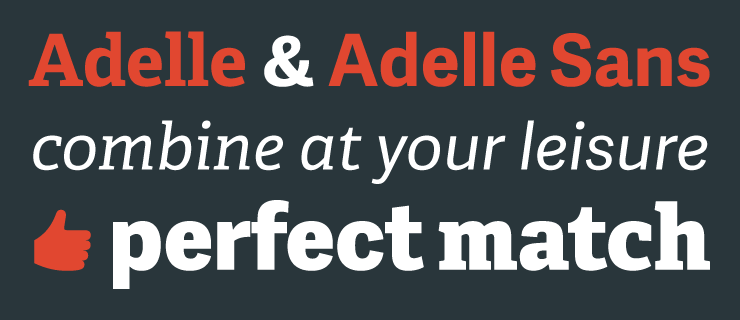
AbrilA contemporary interpretation of a classic newsface.Read moreStandard LigaturesStylistic AlternatesDiscretionary LigaturesLining FiguresOld Style FiguresLining Tabular FiguresFractionsSuperiors (Superscript)Inferiors (Subscript)DenominatorsNumeratorsOrnamentsOpen Type FormatTabular Old Style Figures
AdelleA versatile and elegant multi-purpose Slab Serif with personality.Read moreTabular Old Style FiguresSuperiors (Superscript)Standard LigaturesSmall CapsSlashed ZeroOrnamentsOrdinalsOpen Type FormatOld Style FiguresNumeratorsLining Tabular FiguresLining FiguresInferiors (Subscript)FractionsExtended LatinDiscretionary LigaturesDenominators
Adelle SansA versatile multi-purpose sans serif companion to Adelle Slab.Read moreStandard LigaturesDiscretionary LigaturesSmall CapsLining FiguresOld Style FiguresLining Tabular FiguresFractionsSlashed ZeroOrdinalsSuperiors (Superscript)Inferiors (Subscript)DenominatorsNumeratorsOrnamentsOpenType PROOpen Type FormatTabular Old Style Figures
AlizéA three-weight typeface inspired by the chancery italic of the 16th century.Read moreStandard LigaturesStylistic AlternatesSmall CapsLining FiguresOld Style FiguresLining Tabular FiguresFractionsOrdinalsSuperiors (Superscript)Inferiors (Subscript)DenominatorsNumeratorsOrnamentsExtended LatinOpen Type FormatTabular Old Style Figures
AthelasAn expressive and elegant typeface modeled on its classic ancestors.Read moreStandard LigaturesStylistic AlternatesDiscretionary LigaturesSmall CapsLining FiguresOld Style FiguresLining Tabular FiguresFractionsSlashed ZeroOrdinalsSuperiors (Superscript)Inferiors (Subscript)DenominatorsNumeratorsOrnamentsExtended LatinOpen Type FormatTabular Old Style Figures
BreeA spirited and rhythmic upright italic, ideal for display use.Read moreStandard LigaturesDiscretionary LigaturesLining FiguresOld Style FiguresLining Tabular FiguresFractionsSuperiors (Superscript)Inferiors (Subscript)DenominatorsNumeratorsExtended LatinOpen Type FormatTabular Old Style Figures
Bree SerifAn energetic yet charming upright italic and the perfect companion for Bree.Read moreStandard LigaturesDiscretionary LigaturesLining FiguresOld Style FiguresLining Tabular FiguresFractionsSuperiors (Superscript)Inferiors (Subscript)DenominatorsNumeratorsExtended LatinOpen Type FormatTabular Old Style Figures
Capitolium 2A modern typeface not only for newsprint with strong links to tradition.Read moreStandard LigaturesSmall CapsLining FiguresOld Style FiguresLining Tabular FiguresFractionsOrdinalsSuperiors (Superscript)Inferiors (Subscript)DenominatorsNumeratorsOpenType PROOpen Type FormatTabular Old Style Figures
CoraA versatile and highly legible Sans with some contrast.Read moreStandard LigaturesSmall CapsLining FiguresOld Style FiguresLining Tabular FiguresFractionsSuperiors (Superscript)Inferiors (Subscript)DenominatorsNumeratorsExtended LatinOpen Type FormatTabular Old Style Figures
Coranto 2A refined newsface with distinctive character and clarity. Read moreStandard LigaturesDiscretionary LigaturesLining FiguresOld Style FiguresLining Tabular FiguresFractionsSuperiors (Superscript)Inferiors (Subscript)DenominatorsNumeratorsExtended LatinOpen Type FormatTabular Old Style Figures
CreteAn unusual Slab Serif, great for headlines or short texts.Read moreStandard LigaturesDiscretionary LigaturesLining FiguresOld Style FiguresLining Tabular FiguresFractionsSuperiors (Superscript)Inferiors (Subscript)DenominatorsNumeratorsExtended LatinOpen Type FormatTabular Old Style Figures
EditaA contemporary book typeface with a soft and warm touch.Read moreStandard LigaturesStylistic AlternatesDiscretionary LigaturesSmall CapsLining FiguresOld Style FiguresLining Tabular FiguresFractionsSlashed ZeroOrdinalsSuperiors (Superscript)Inferiors (Subscript)DenominatorsNumeratorsOrnamentsExtended LatinOpen Type FormatTabular Old Style Figures
EskapadeAn experimental interpretation of Fraktur mixed with old-style.Read moreStandard LigaturesDiscretionary LigaturesLining FiguresOld Style FiguresLining Tabular FiguresFractionsSuperiors (Superscript)Inferiors (Subscript)DenominatorsNumeratorsExtended LatinOpen Type FormatTabular Old Style Figures
GivryA lively and delicate blackletter, modeled on a bâtarde flamande.Read moreStandard LigaturesStylistic AlternatesDiscretionary LigaturesLining FiguresOld Style FiguresFractionsOrdinalsSuperiors (Superscript)Inferiors (Subscript)DenominatorsNumeratorsOrnamentsSwash AlternatesExtended LatinOpen Type FormatTabular Old Style Figures
IskraA sans serif challenging the limits between utilitarian and decorative.Read moreStandard LigaturesLining FiguresLining Tabular FiguresFractionsOrdinalsSuperiors (Superscript)Inferiors (Subscript)DenominatorsNumeratorsOpen Type Format
KarminaA highly legible and economic typeface, perfect for newspapers.Read moreStandard LigaturesStylistic AlternatesDiscretionary LigaturesSmall CapsLining FiguresOld Style FiguresLining Tabular FiguresFractionsSlashed ZeroOrdinalsSuperiors (Superscript)Inferiors (Subscript)DenominatorsNumeratorsOrnamentsExtended LatinOpen Type FormatTabular Old Style Figures
Karmina SansA versatile and vivid companion Sans to Karmina Serif.Read moreStandard LigaturesStylistic AlternatesDiscretionary LigaturesSmall CapsLining FiguresOld Style FiguresLining Tabular FiguresFractionsSlashed ZeroOrdinalsSuperiors (Superscript)Inferiors (Subscript)DenominatorsNumeratorsOrnamentsExtended LatinOpen Type FormatTabular Old Style Figures
LFT EticaA strong, yet delicate Sans, suitable for a vast variety of applications.Read moreStandard LigaturesDiscretionary LigaturesLining FiguresOld Style FiguresLining Tabular FiguresFractionsSuperiors (Superscript)Inferiors (Subscript)DenominatorsNumeratorsExtended LatinOpen Type FormatTabular Old Style Figures
MaiolaA contemporary, yet classic Serif with calligraphic nuances.Read moreStandard LigaturesStylistic AlternatesDiscretionary LigaturesSmall CapsLining FiguresOld Style FiguresLining Tabular FiguresFractionsSlashed ZeroOrdinalsSuperiors (Superscript)Inferiors (Subscript)DenominatorsNumeratorsOrnamentsExtended LatinOpen Type FormatTabular Old Style Figures
PollenA poetically joyful text typeface, with calligraphic roots.Read moreStandard LigaturesStylistic AlternatesDiscretionary LigaturesSmall CapsLining FiguresOld Style FiguresLining Tabular FiguresFractionsSlashed ZeroOrdinalsSuperiors (Superscript)Inferiors (Subscript)DenominatorsNumeratorsOrnamentsExtended LatinOpen Type FormatTabular Old Style Figures
RonniaA friendly humanist Sans Serif, perfect for editorial use.Read moreStandard LigaturesStylistic AlternatesDiscretionary LigaturesSmall CapsLining FiguresOld Style FiguresLining Tabular FiguresFractionsSlashed ZeroOrdinalsSuperiors (Superscript)Inferiors (Subscript)DenominatorsNumeratorsOrnamentsExtended LatinOpen Type FormatTabular Old Style Figures
SirbaA warm and functional serif typeface, perfect for any complex text settings.Read moreStandard LigaturesStylistic AlternatesDiscretionary LigaturesSmall CapsLining FiguresOld Style FiguresLining Tabular FiguresFractionsSlashed ZeroOrdinalsSuperiors (Superscript)Inferiors (Subscript)DenominatorsNumeratorsOrnamentsOpen Type FormatTabular Old Style Figures
SoleilFresh interpretation of a geometric Sans perfect for text and headline.Read moreStandard LigaturesStylistic AlternatesDiscretionary LigaturesSmall CapsLining FiguresOld Style FiguresLining Tabular FiguresFractionsSlashed ZeroOrdinalsSuperiors (Superscript)Inferiors (Subscript)DenominatorsNumeratorsOrnamentsExtended LatinOpen Type FormatTabular Old Style Figures
Tablet GothicA multi-faceted family of 84 fonts for extensive editorial use.Read moreStandard LigaturesLining FiguresLining Tabular FiguresFractionsSlashed ZeroSuperiors (Superscript)Inferiors (Subscript)DenominatorsNumeratorsExtended LatinOpen Type Format